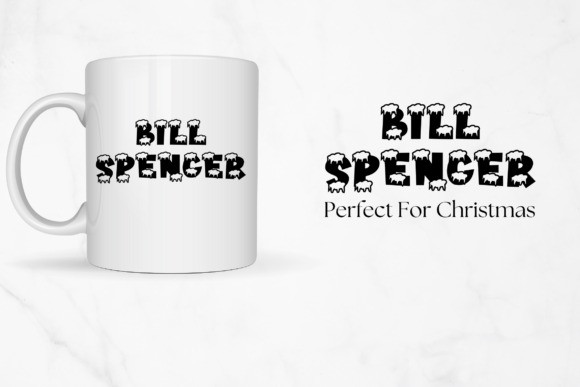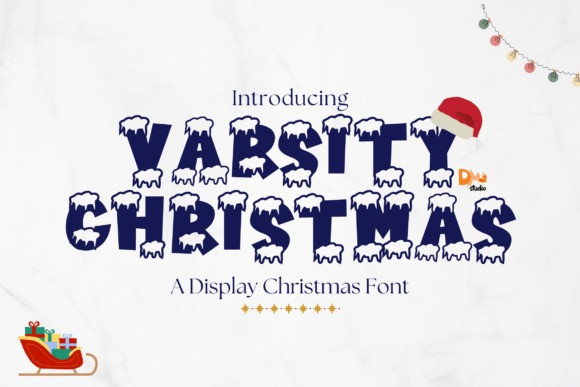
Varsity Christmas Font a distinctive typeface that seamlessly marries the timeless sophistication of varsity style with a sprinkle of yuletide merriment. Ideally suited for Christmas-oriented assignments, festive greetings, athletic holiday paraphernalia, and seasonal identities, this font infuses an engaging blend of nostalgia and dynamism into your designs. The Varsity Christmas markedly enhances the visual allure of holiday clothing, banners or invites, imbuing them with a vibe that’s both fun and powerfully captivating.